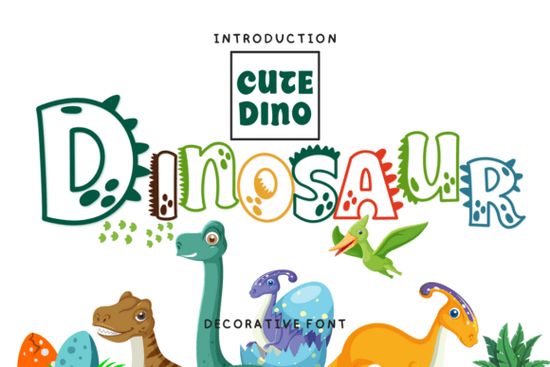
The Dinosaur font is a unique and playful typeface that brings a sense of whimsy and character to any design project. Whether you're a designer, crafter, print-on-demand seller, small business owner, or creative hobbyist, this font offers a fresh way to express your ideas. Its bold and stylized letters make it ideal for adding personality to everything from social media posts to custom merchandise. The Dinosaur font stands out as a versatile choice that can elevate your creative work without overwhelming it.
If you're looking for a decorative font that adds visual interest while maintaining readability, the Dinosaur font could be just what you need. It’s perfect for projects that require a bit of fun and flair, such as greeting cards, stationery, or promotional materials. Its distinctive look makes it easy to recognize and remember, which is great for branding or personal expression. The font works well in both digital and physical formats, making it a valuable addition to your design toolkit.
What Makes the Dinosaur Font Stand Out?
The Dinosaur font isn’t just about its appearance it’s also about how it can enhance your creative process. Its unique shape and structure give it a one-of-a-kind feel that can make your designs more engaging. For example, using it on a banner or t-shirt can add a playful touch that catches the eye. It’s also great for creating a cohesive theme in a project, like a children's book or a themed event invitation.
One of the key strengths of the Dinosaur font is its versatility. You can use it in different sizes and contexts without losing its charm. Whether you're working on a large-scale poster or a small piece of jewelry, the font adapts well. This flexibility makes it a go-to option for a wide range of creative applications.
How to Use the Dinosaur Font in Your Projects
There are many ways to incorporate the Dinosaur font into your work. For instance, if you're designing a greeting card, you might use the font for the main text to create a memorable and eye-catching message. On social media, it can be used for captions or graphics that need a little extra personality. For print-on-demand sellers, the font can be applied to mugs, T-shirts, or stickers to add a unique touch to your products.
When using the Dinosaur font, it’s important to consider the context. While it’s great for casual or playful designs, it may not be suitable for formal documents or professional presentations. However, with careful use, it can still add a subtle level of creativity without being too distracting.
- Use it for playful invitations or announcements.
- Apply it to social media graphics for a fun visual effect.
- Try it on custom merchandise like mugs or T-shirts.
- Pair it with simpler fonts for balance in design layouts.
Why Choose the Dinosaur Font for Your Designs?
The Dinosaur font is more than just a trendy choice it’s a practical tool for anyone looking to add a bit of character to their work. It’s designed with care and attention to detail, ensuring that it looks great in both digital and print formats. Whether you’re working on a personal project or a commercial one, this font can help you stand out in a crowd.
Another benefit of the Dinosaur font is its ease of use. It’s available in multiple file formats, making it compatible with most design software. This means you can start using it right away without worrying about technical limitations. Plus, its clear and legible structure ensures that it remains readable even at smaller sizes.
For those who are new to using decorative fonts, the Dinosaur font is a great starting point. It’s not too complicated, yet it offers enough variation to keep your designs interesting. As you become more familiar with it, you can experiment with different combinations and styles to find what works best for your needs.
If you're looking for a font that combines creativity with functionality, the Dinosaur font is definitely worth considering. It’s a simple yet effective way to bring more personality to your work, whether you're a professional designer or a hobbyist with a passion for creativity.
Before you start using the Dinosaur font, take some time to explore how it fits into your current projects. Test it out in different contexts to see how it performs. You might find that it becomes a favorite go-to font for many of your designs. With its unique style and practical use, the Dinosaur font has the potential to become an essential part of your creative arsenal.
Remember to always consider the audience and purpose of your design when choosing a font. The Dinosaur font is best suited for projects that aim to engage and delight, rather than convey serious or formal messages. By using it thoughtfully, you can ensure that it enhances your work rather than detracts from it.
Quick Checklist:
- Test the Dinosaur font in different design contexts.
- Ensure it complements other elements in your layout.
- Consider the tone and audience of your project.
- Explore other decorative fonts for variety.